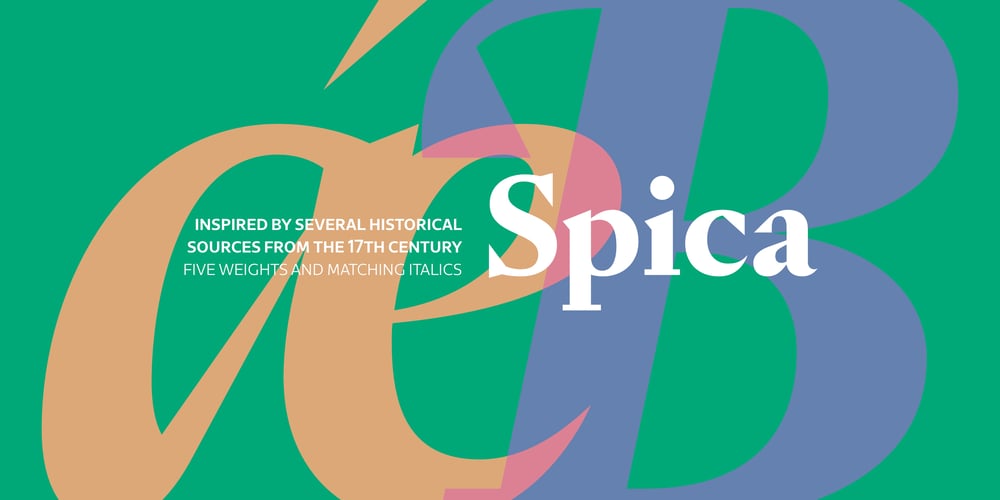
Spica
Spica font
Spica Font Family was designed by Dino dos Santos and published by DSType. Spica contains 10 styles and family package options. Spica is a typeface inspired by several historical sources from the 17th century, yet it doesn’t specially focus on any models or even tries to replicate any formal shapes. We intended to bring some duality into this typeface —a sort of softness sophistication paired with rigidity and simplicity of the letter shapes— to provide Spica with bold energy and distinctive character. Spica features four distinct scripts, that support over 290 languages, including an extended character set for minor African languages, Greek, Cyrillic and Arabic, among dozens of typographic goodies.